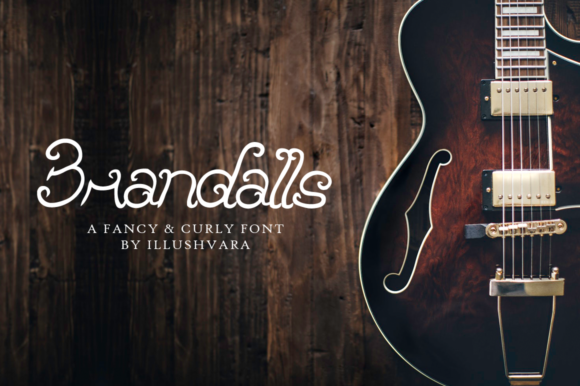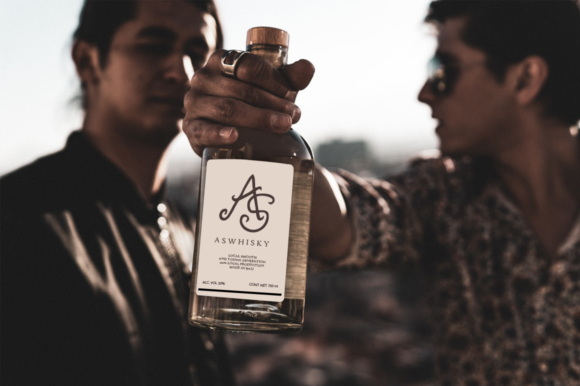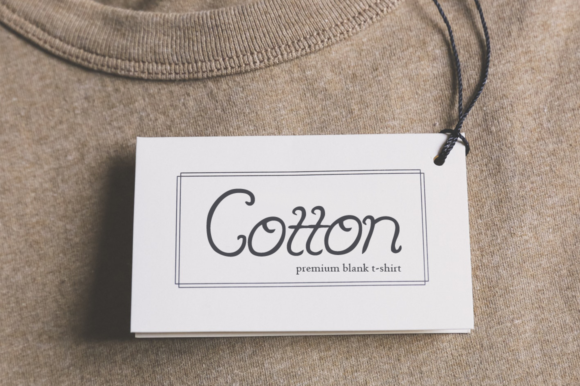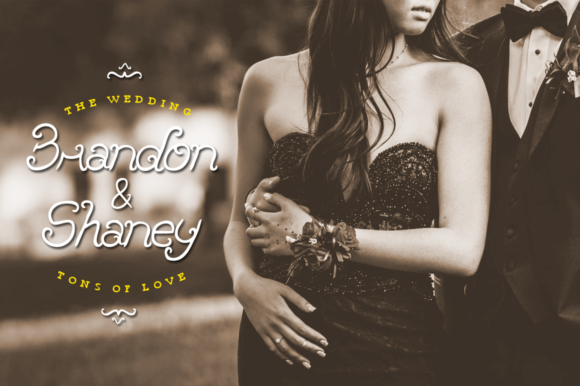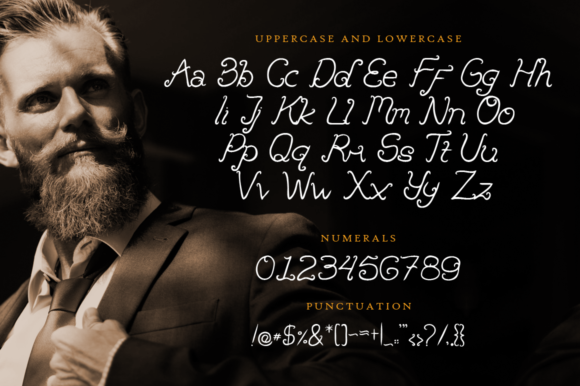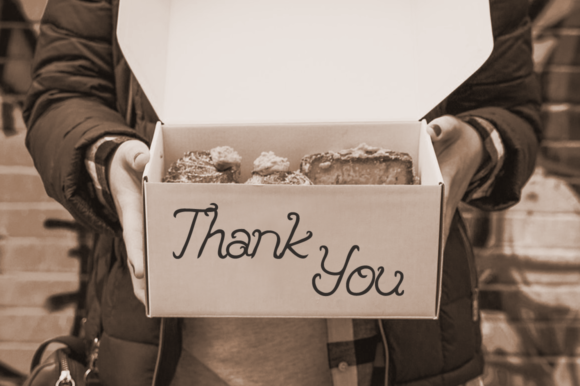
Brandalls Font
About Brandalls Font
The Brandalls is a fancy and curly font. It was inspired by ocean waves and was mixed with a script handwriting. It has a beautiful and curved surface and is suitable for all types of design projects.